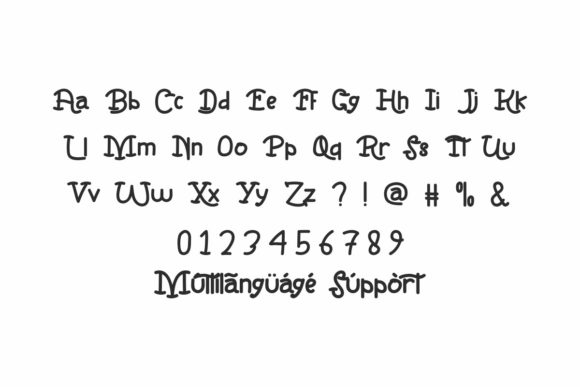
Playground Kids Font
db-ku.com - Script & Handwritten -- Playground Kids is a playful and fun handwritten font inspired by kids in kindergarten. This font is crafted carefully in every single letter, and it is sure to add that special touch to your designs. This one should make your designs instantly jaw-dropping!